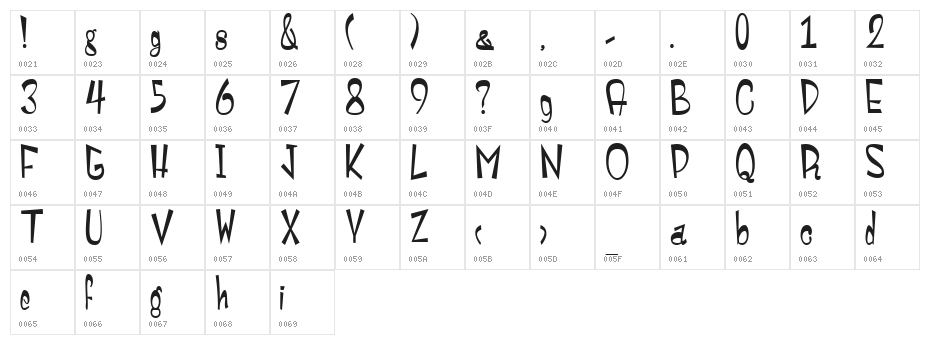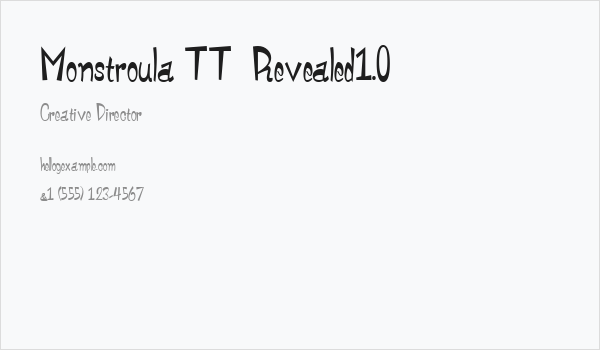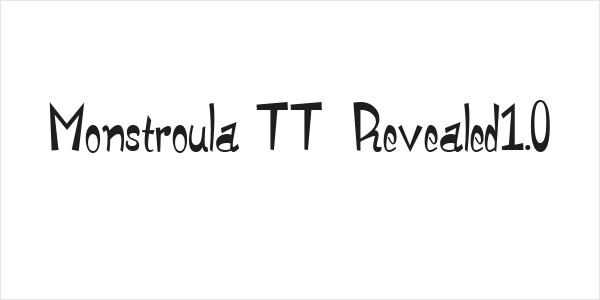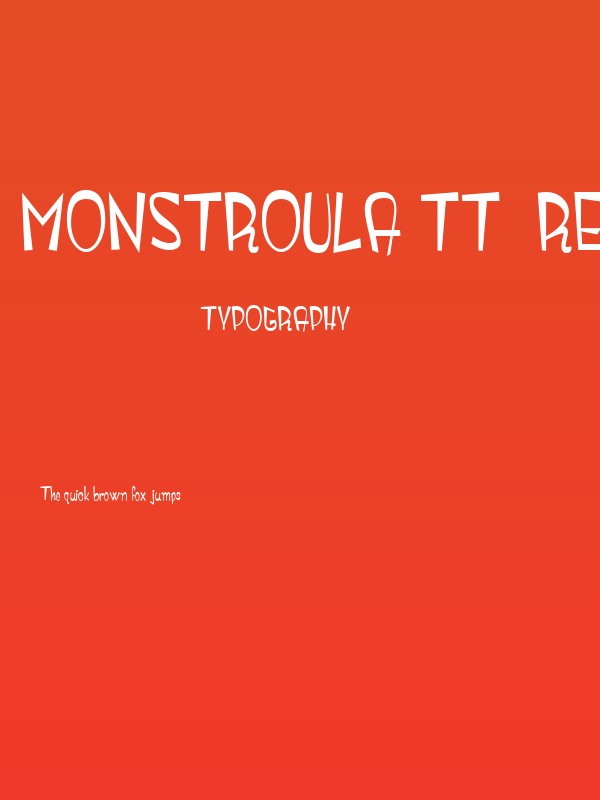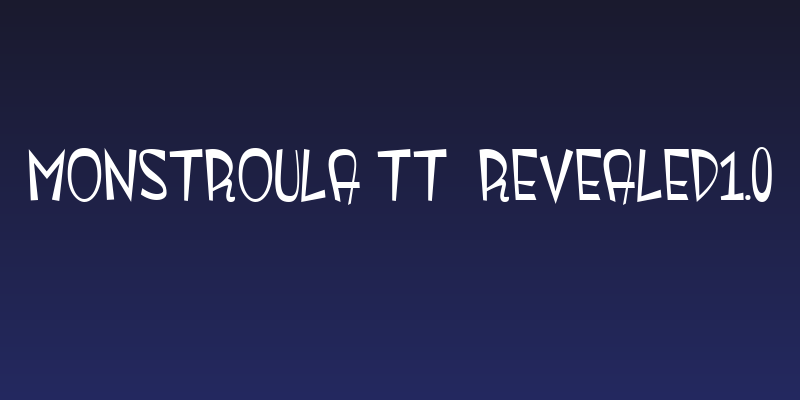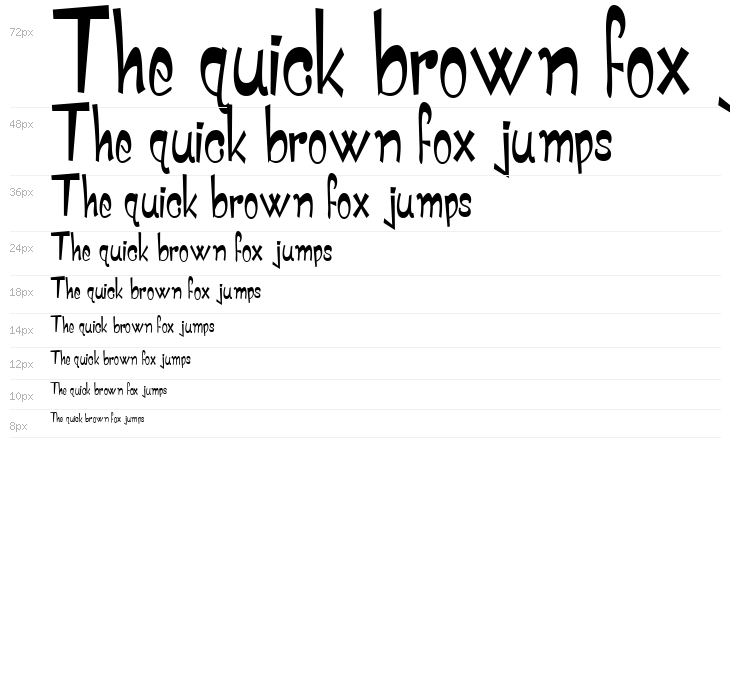
Monstroula TT Revealed1.0 Font
Monstroula TT Revealed1.0 Description
This font features a playful and whimsical design with exaggerated curves and angles, creating a lively and energetic appearance. The uppercase letters are bold and dynamic, with varying stroke widths that add a sense of movement. The lowercase letters maintain the playful theme with unique shapes and a slightly irregular baseline, enhancing the font's quirky character. The numbers and special characters follow the same style, ensuring consistency throughout. This font's distinctive style makes it ideal for creative and informal applications.